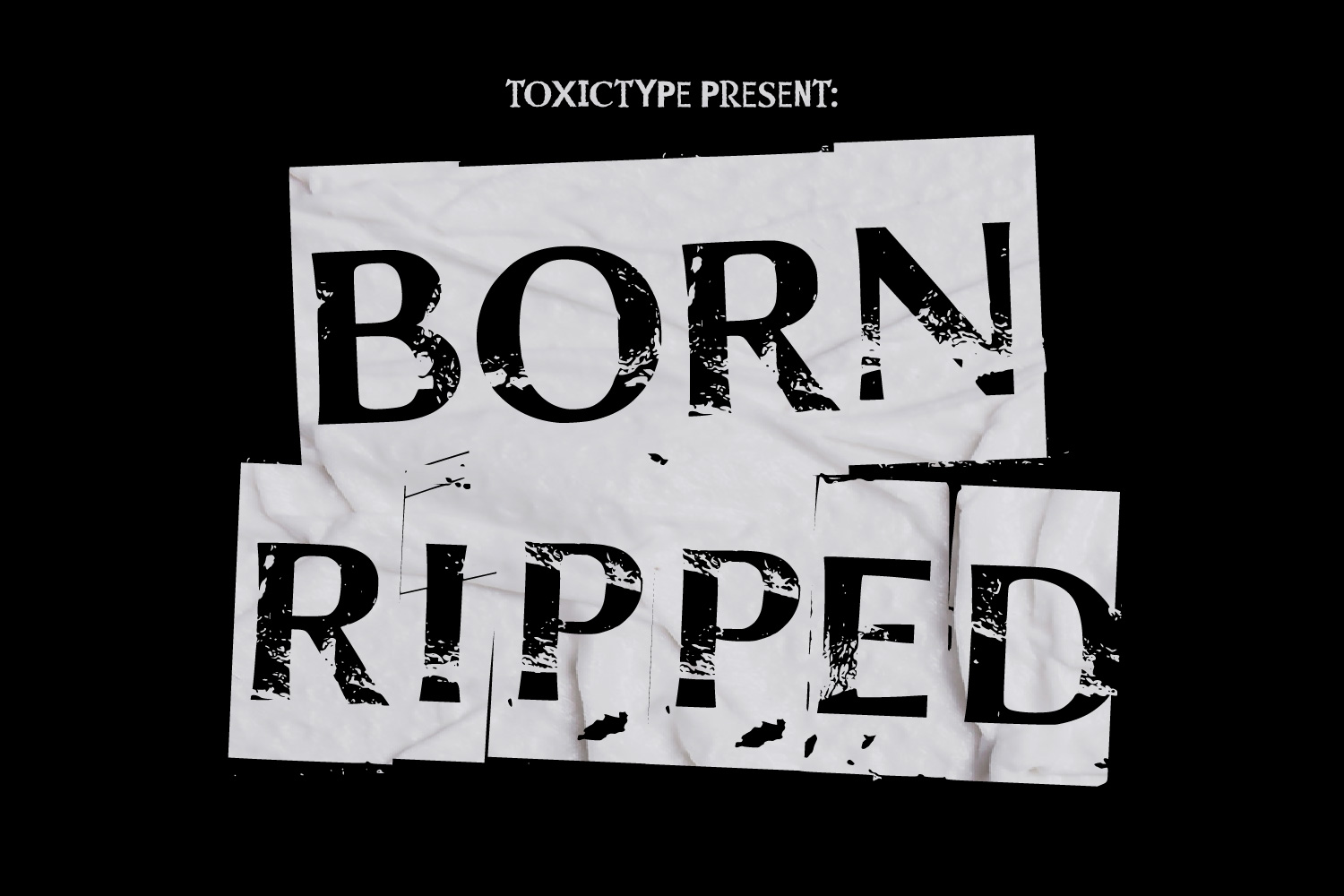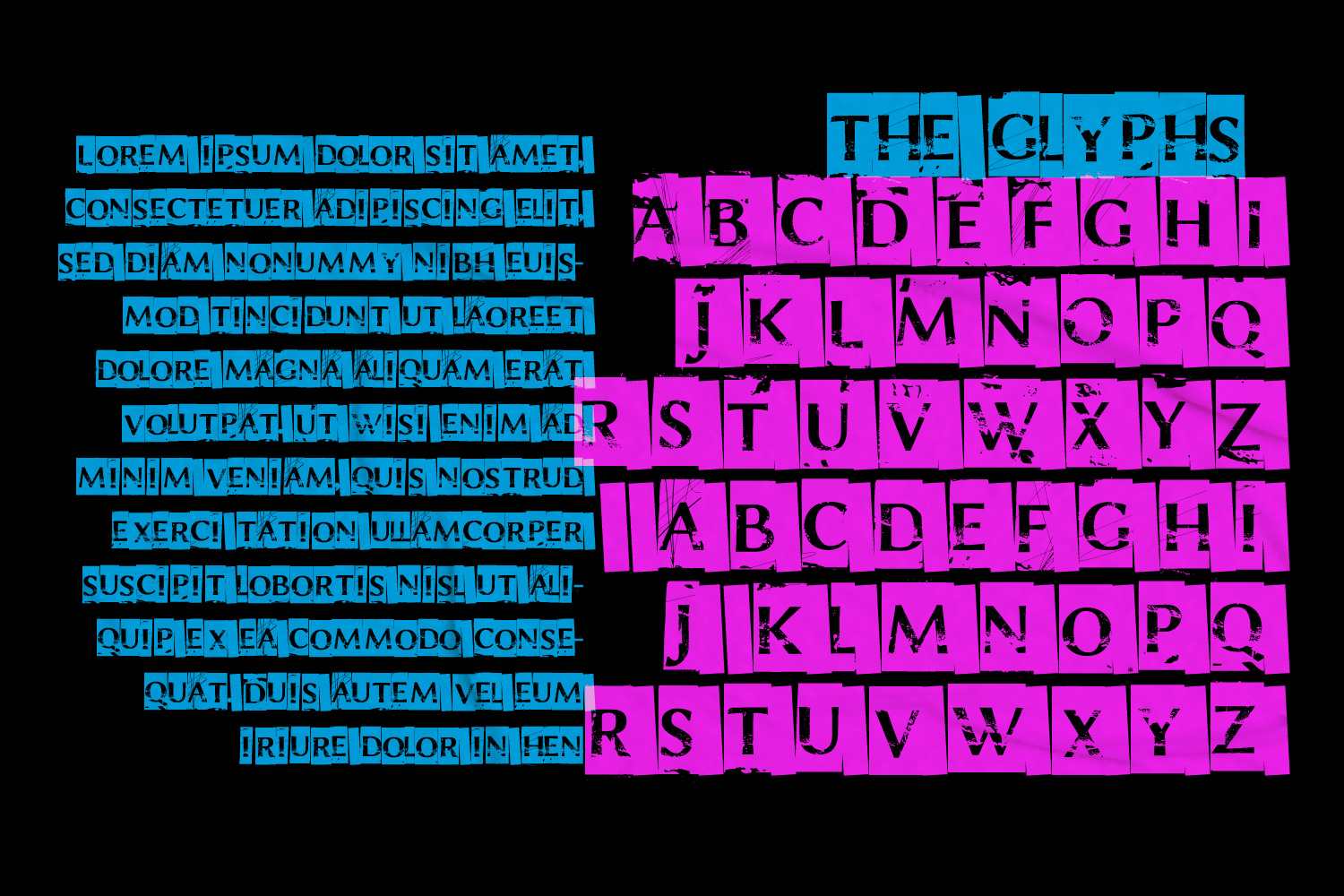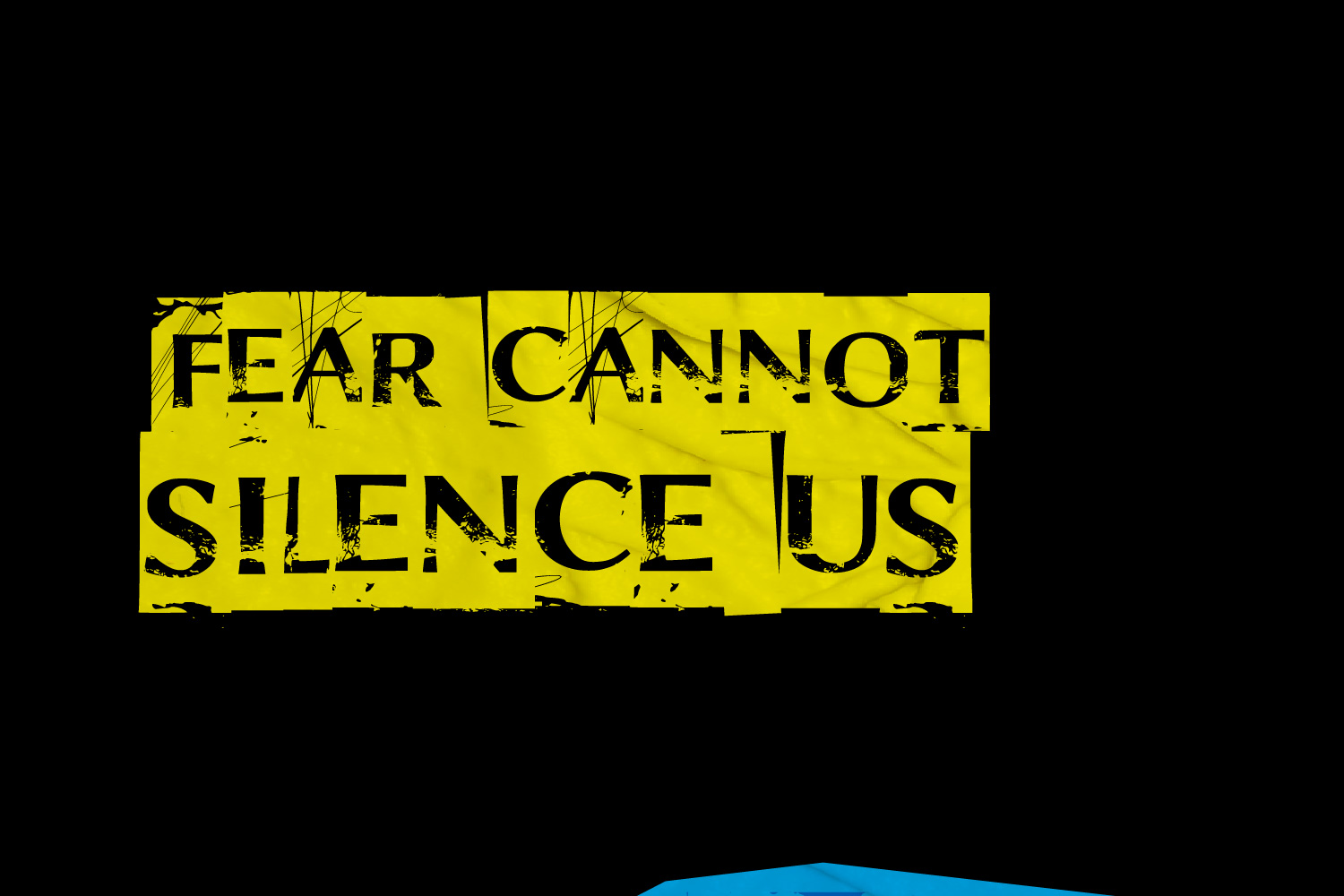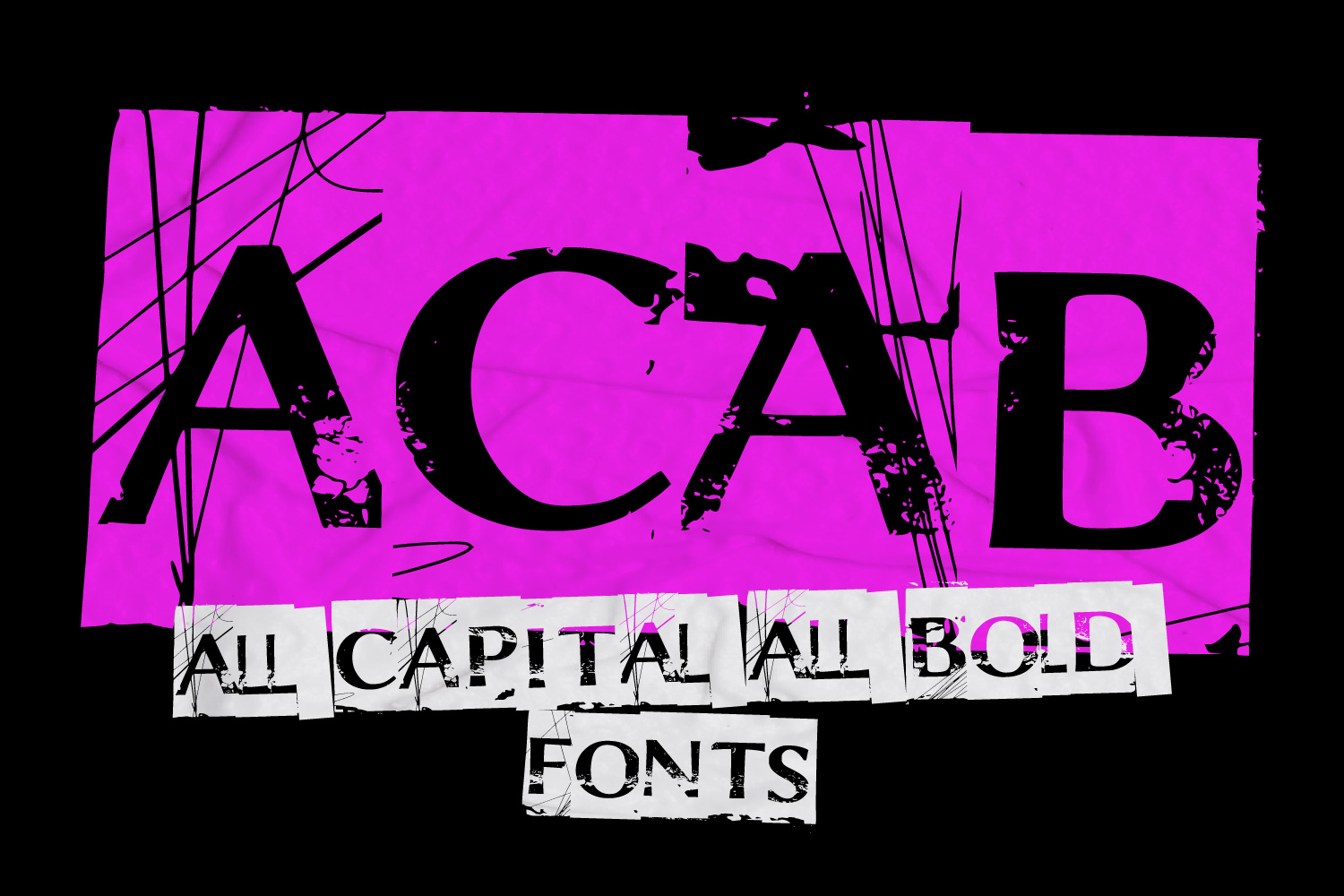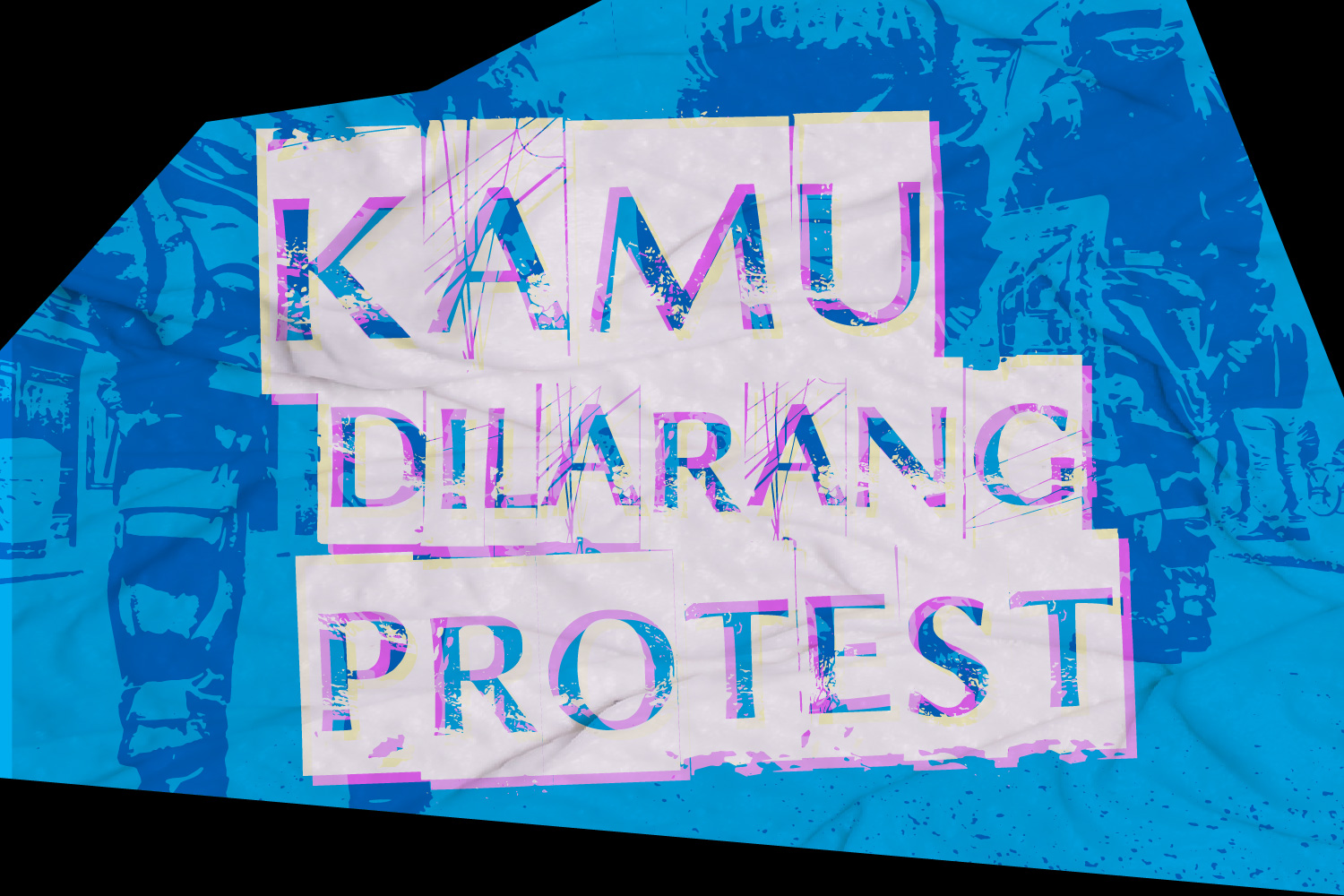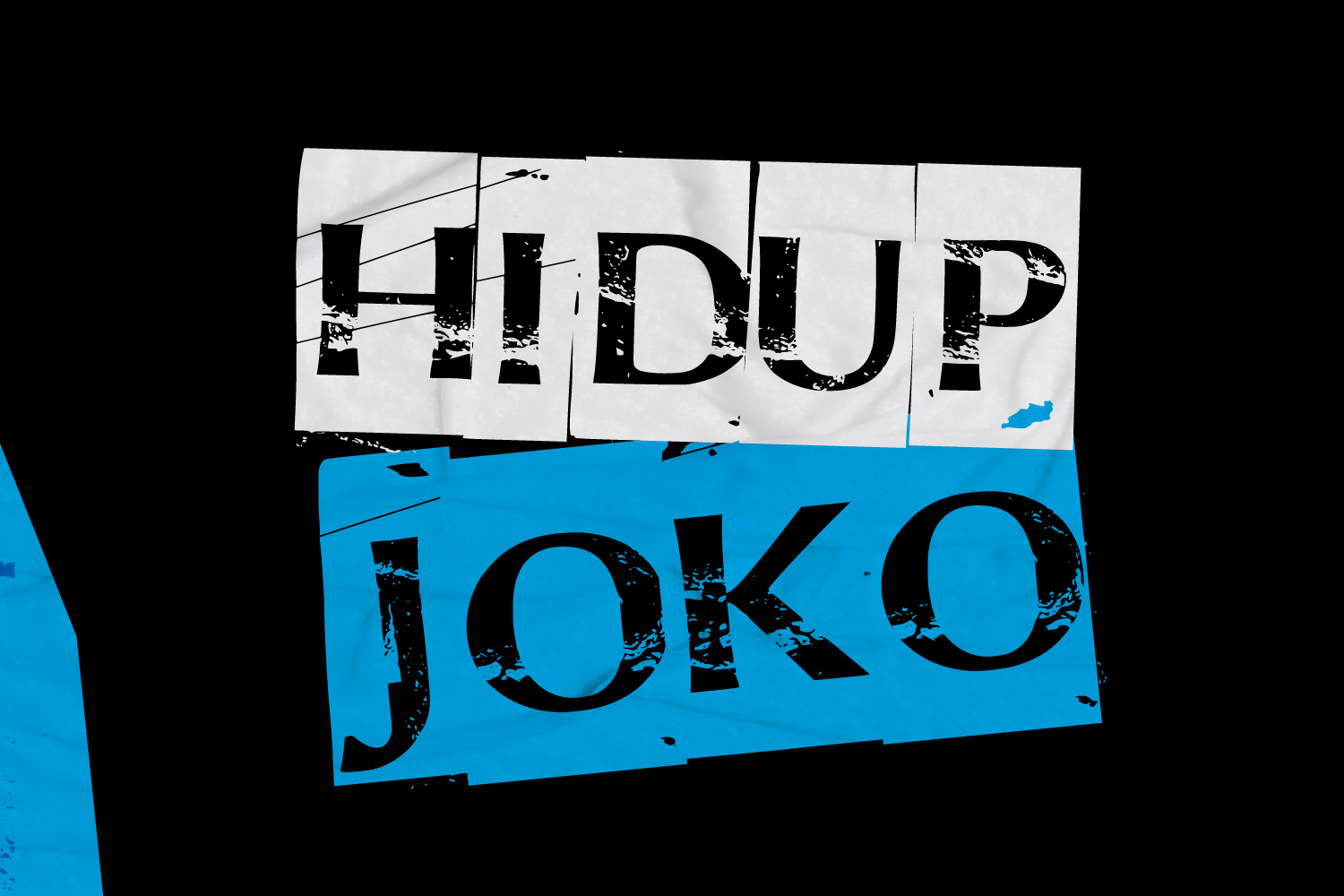
Born Ripped is a raw punk-style font with grunge textures and torn edges. Inspired by ripped posters, spray paint, and underground zines, it’s perfect for music artwork, protest graphics, band logos, or any design that needs a bold anarchic attitude.